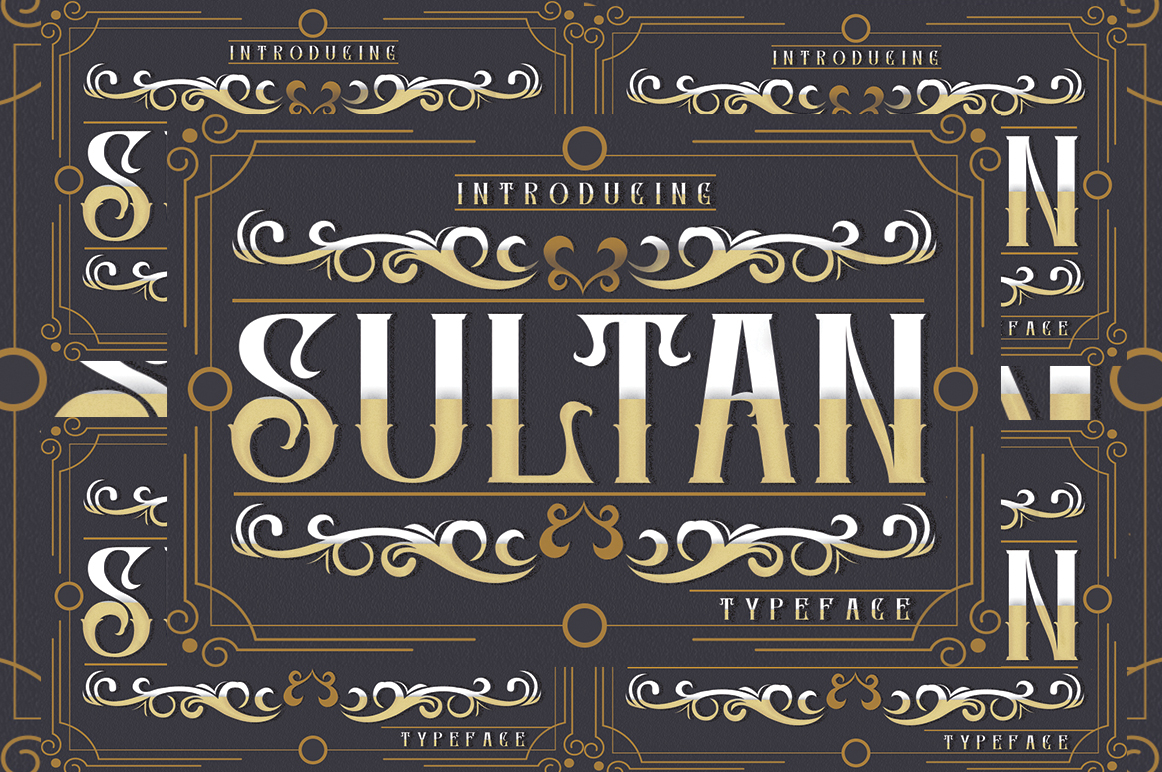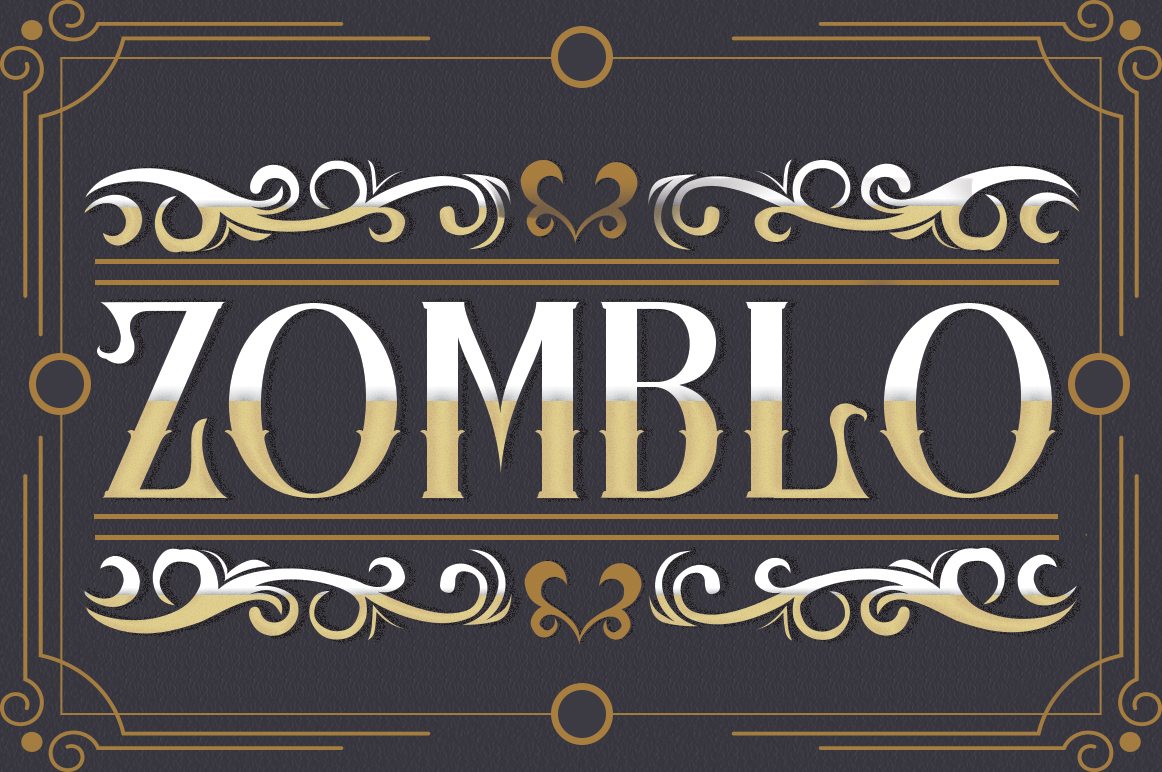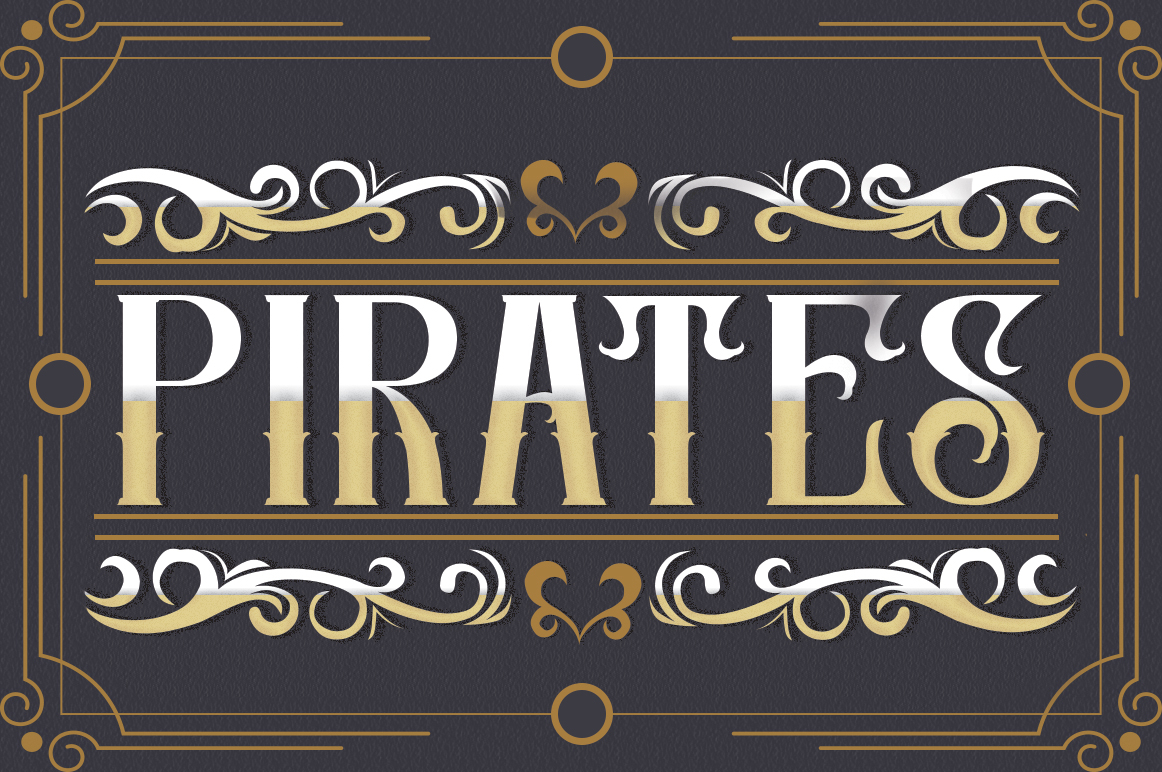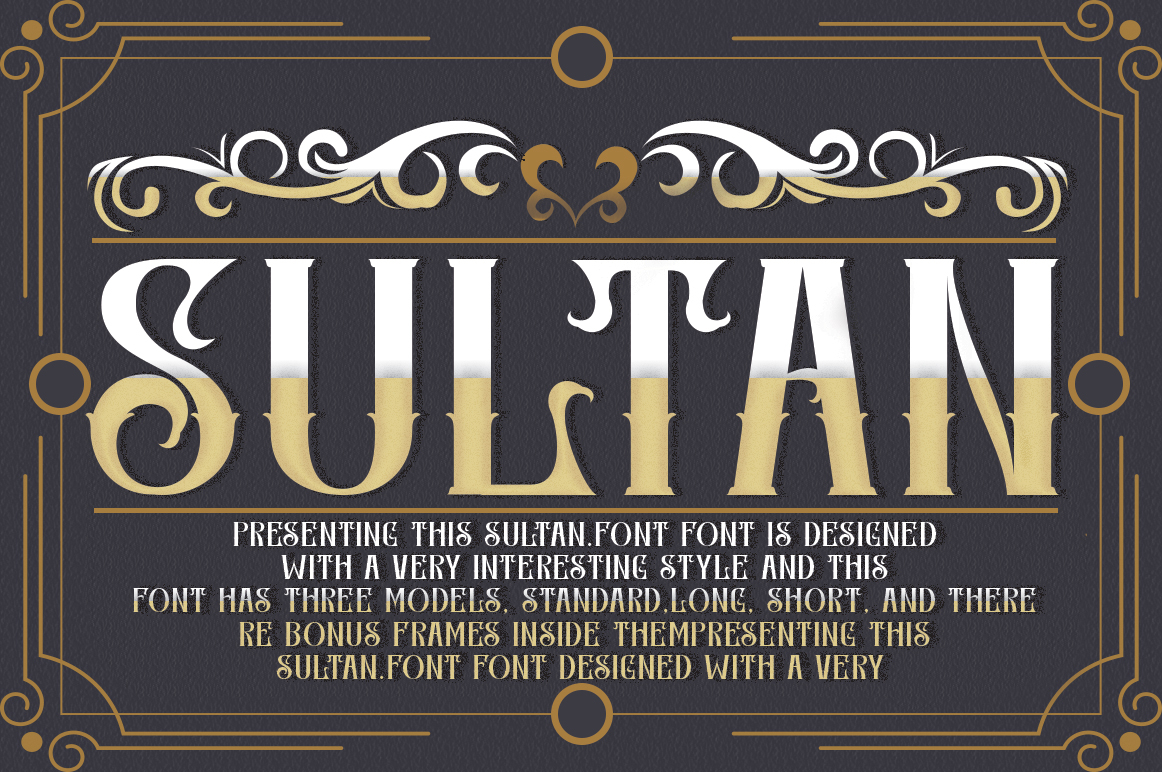
Sultan Font
About Sultan Font
Sultan simplifies elegance into one truly outstanding blackletter font. It brings gorgeous frames. Use this modern font for all of your logos, branding, social media, and crafty DIY projects.